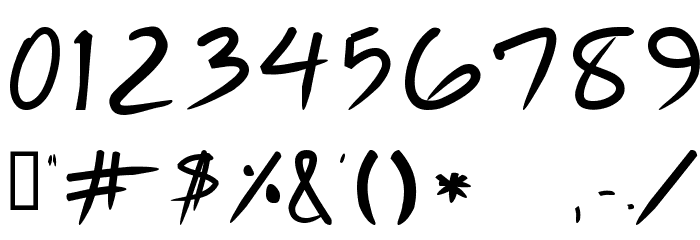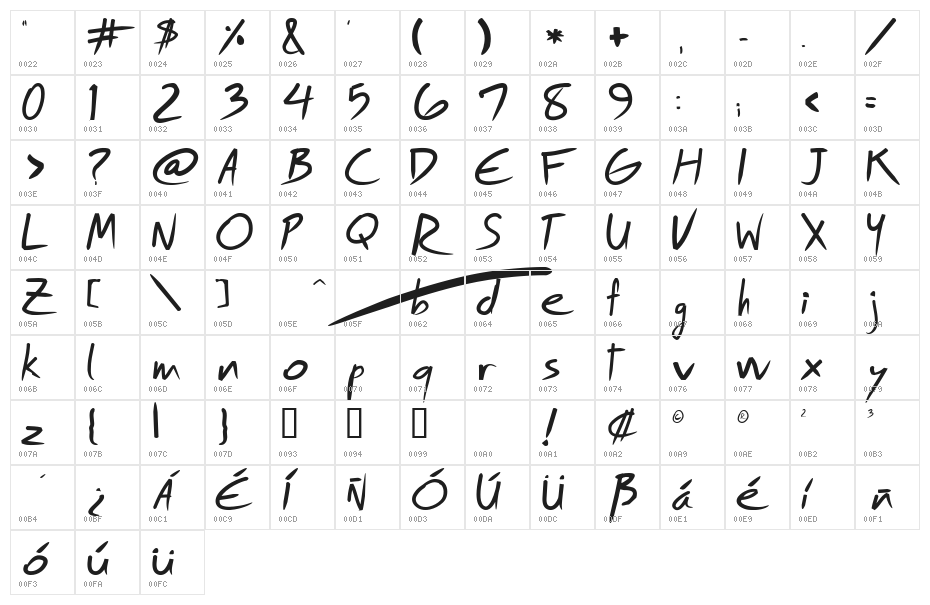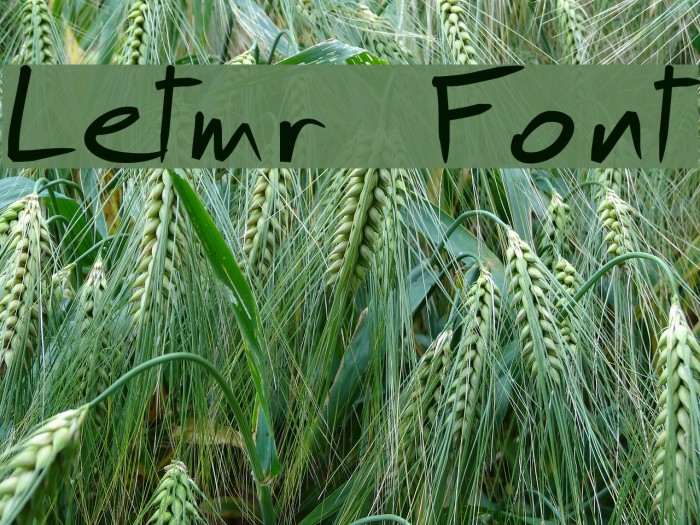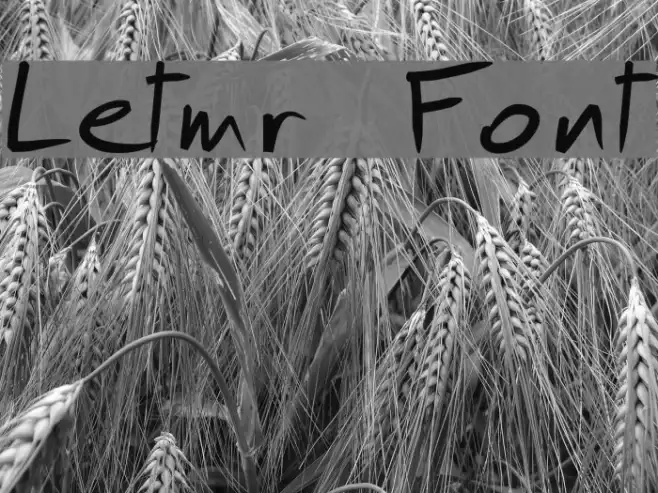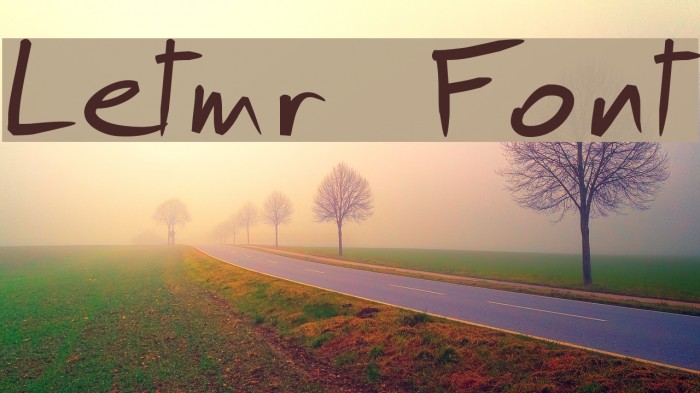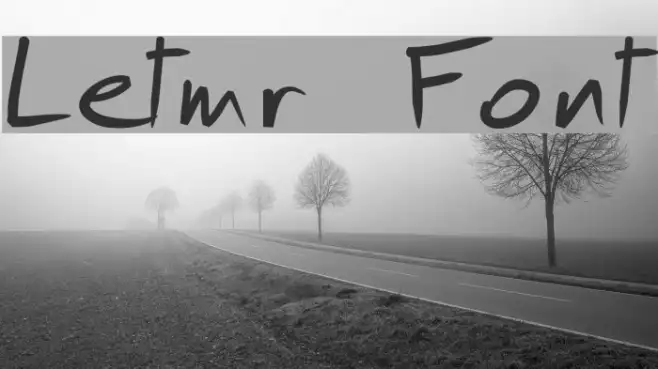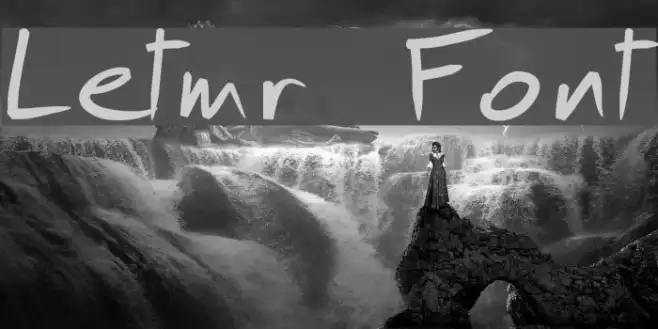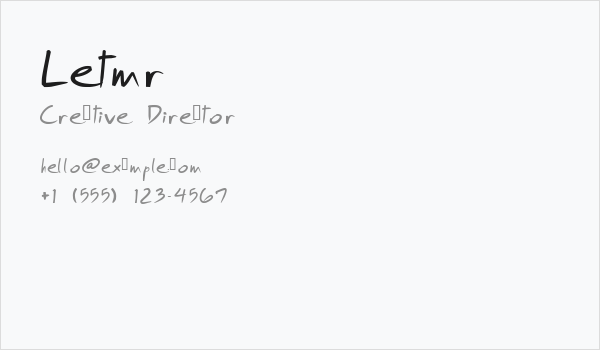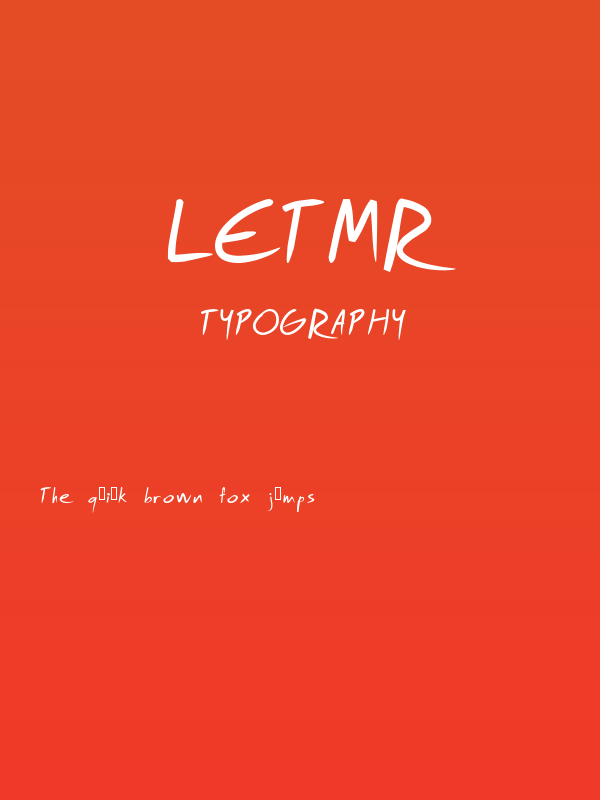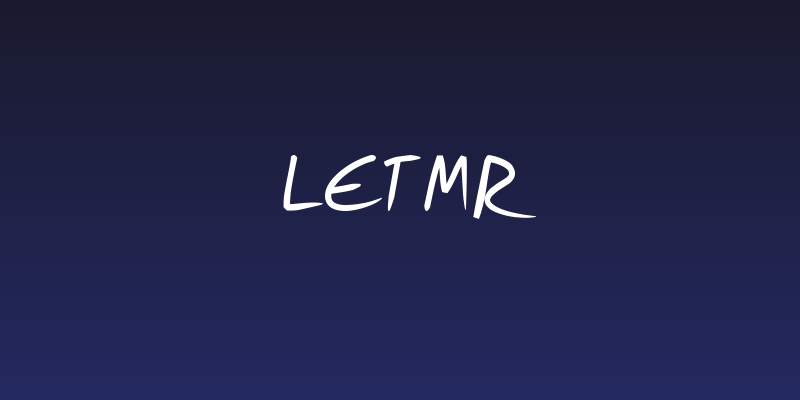
Letmr Font
Letmr Description
This font exhibits a playful and dynamic handwritten style, characterized by its irregular strokes and casual appearance. The uppercase letters are bold and slightly slanted, giving them a sense of movement and energy. The lowercase letters maintain a consistent flow, with some characters featuring unique loops and curves that add to the font's charm. The numerals are clear and legible, matching the overall informal aesthetic. Special characters are creatively integrated, maintaining the font's lively and spontaneous feel. This font is perfect for projects that require a personal touch or a sense of informality.